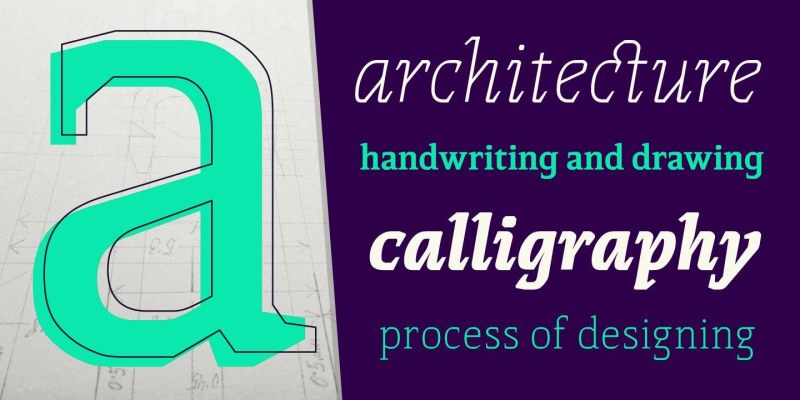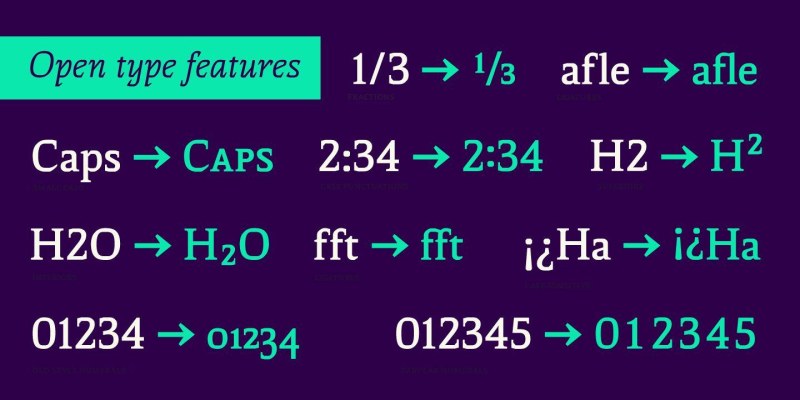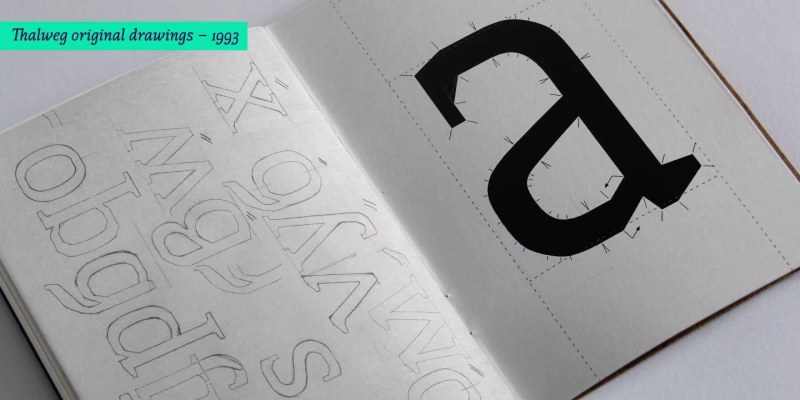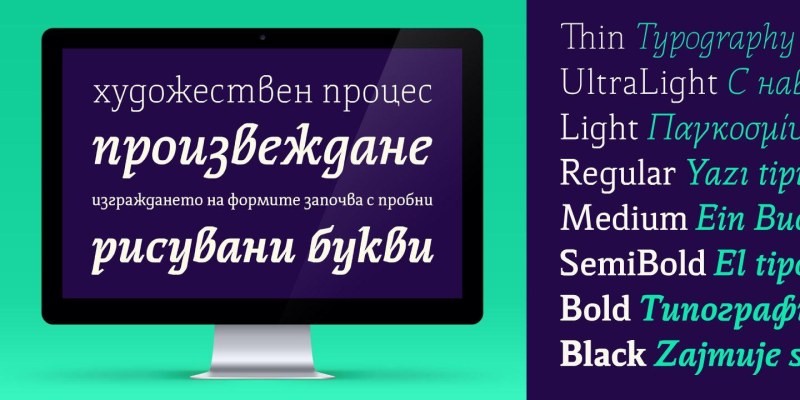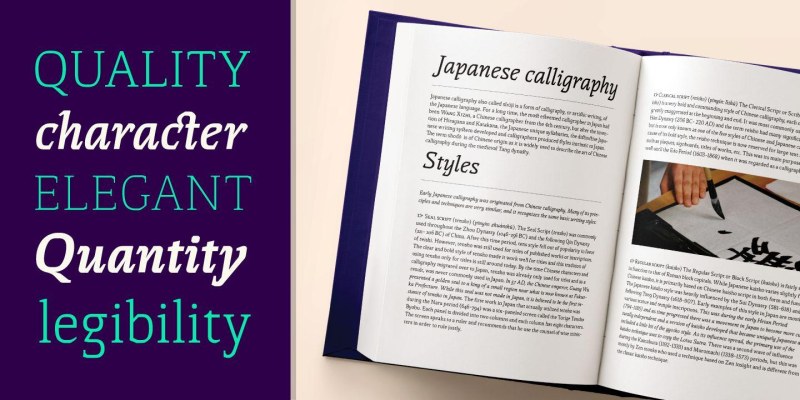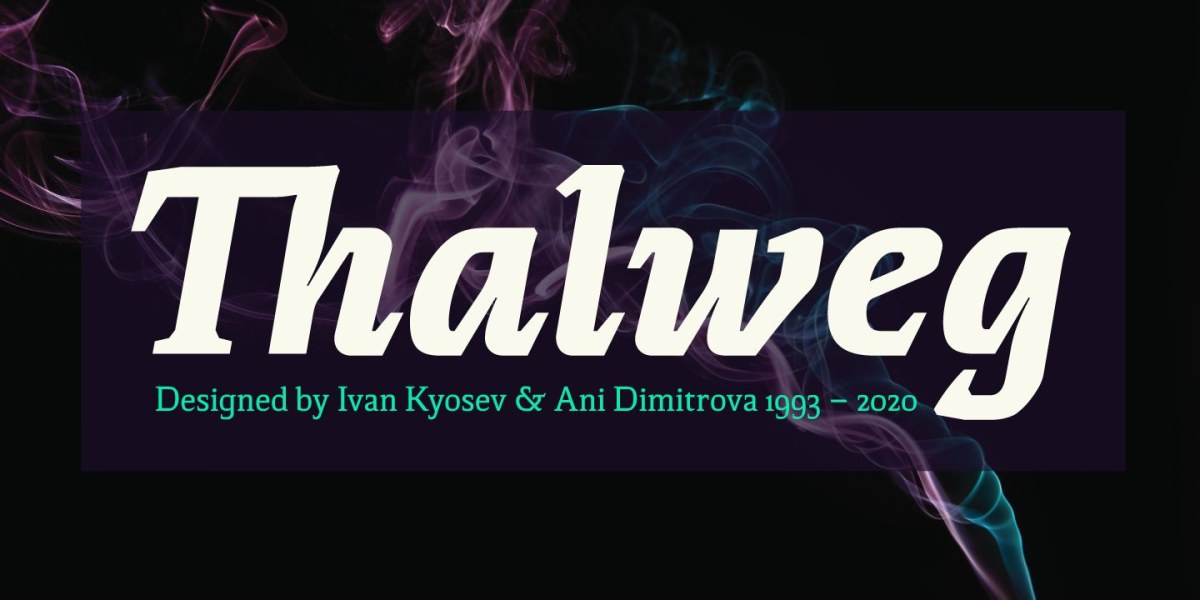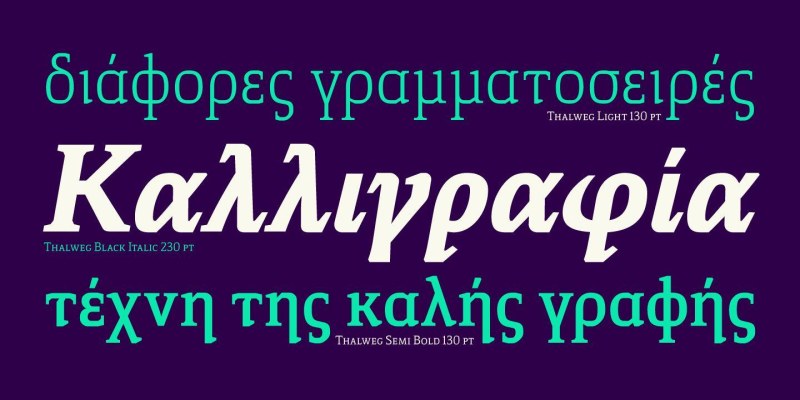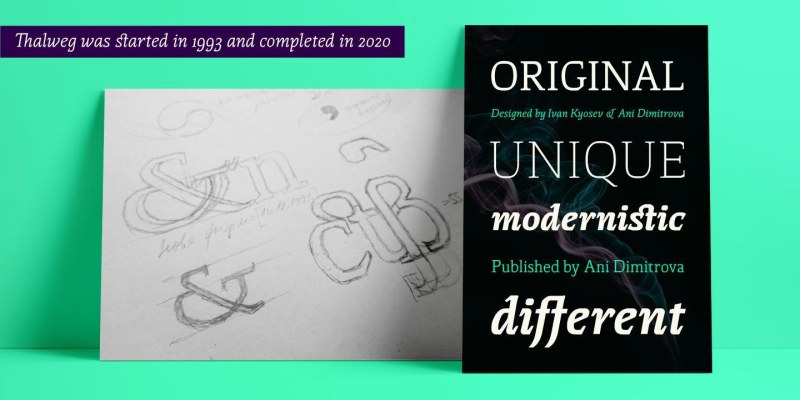
Thalweg Font Family
Thalweg serif typeface is a project focused on the digitalization and development of the Thalweg font. The font was originally designed in 1993 by the Bulgarian artist Ivan Kyosev. In 2018 Ani Dimitrova began the revival of the Thalweg font and converted the drawings into a digital form. The existing set of characters required some necessary expansions such as the development of capital letters, alternative symbols and many other functions. Furthermore, some additional weights were developed which aimed to make the font more complete.
Thalweg was completed in 2020 with 16 weights ranging from Thin to Black with extra drawn italics and small caps versions, each style containing more than 1100 glyphs. The font comes with an extended coverage of the Latin, Cyrillic and Greek Scripts. All of the weights are specifically equipped for complex, professional typography with Open Type Features. These features include: Small Caps, Ligatures, Discretionary Ligatures, Superscript, Subscript, Tabular Figures, Old-Style Figures, Circled Figures, Arrows, Matching currency symbols and fraction. The Thalweg serif typeface is a perfect choice for body text, branding design, web design, editorial design and more.